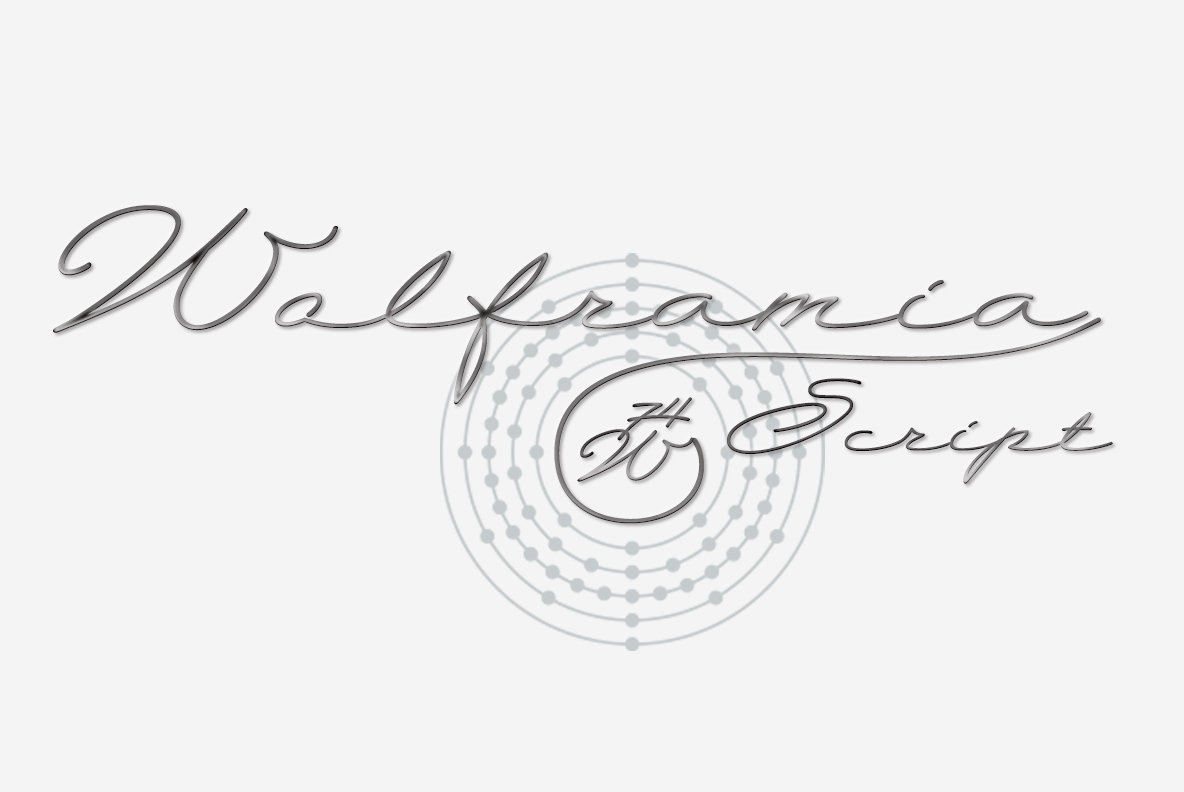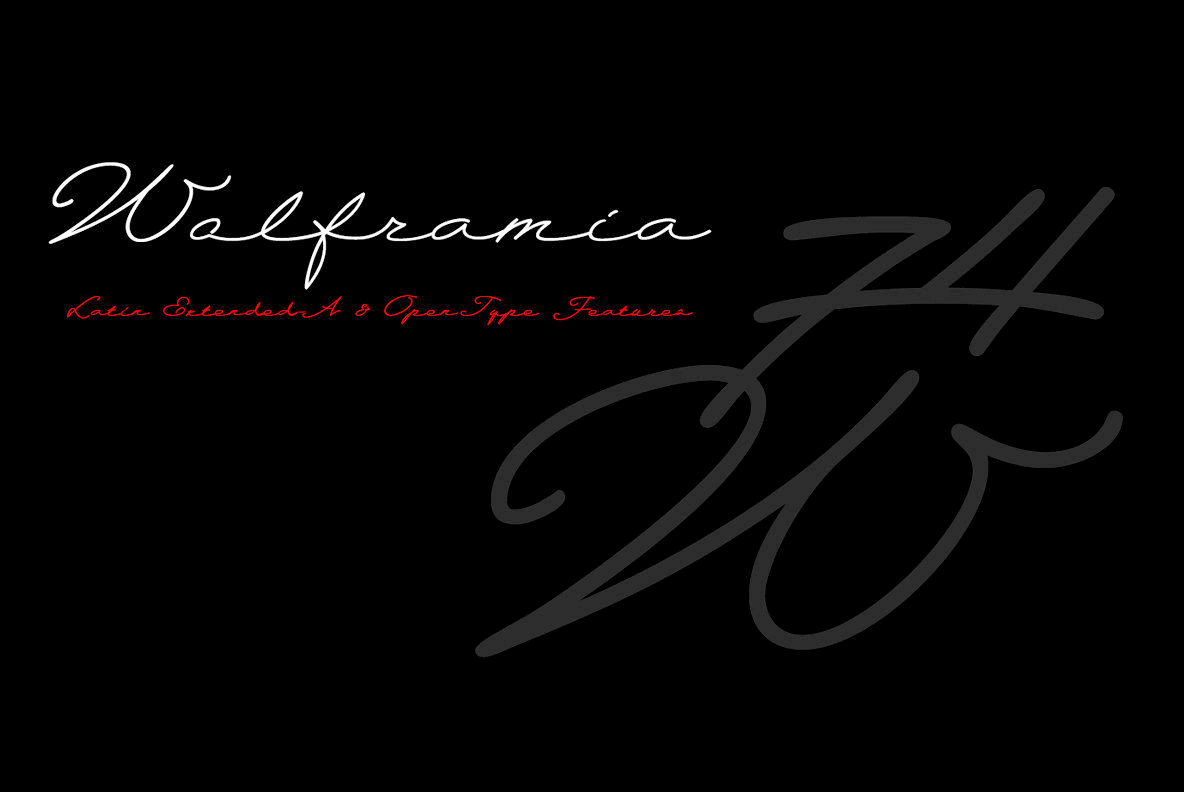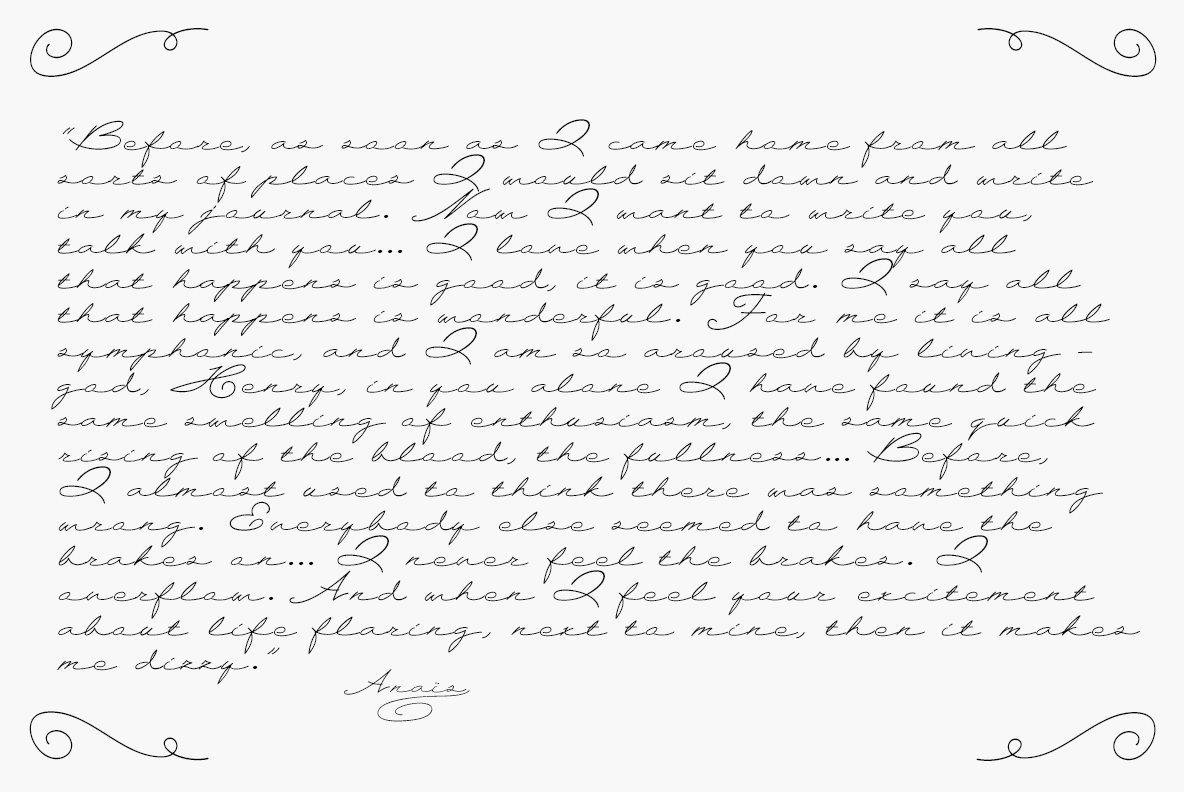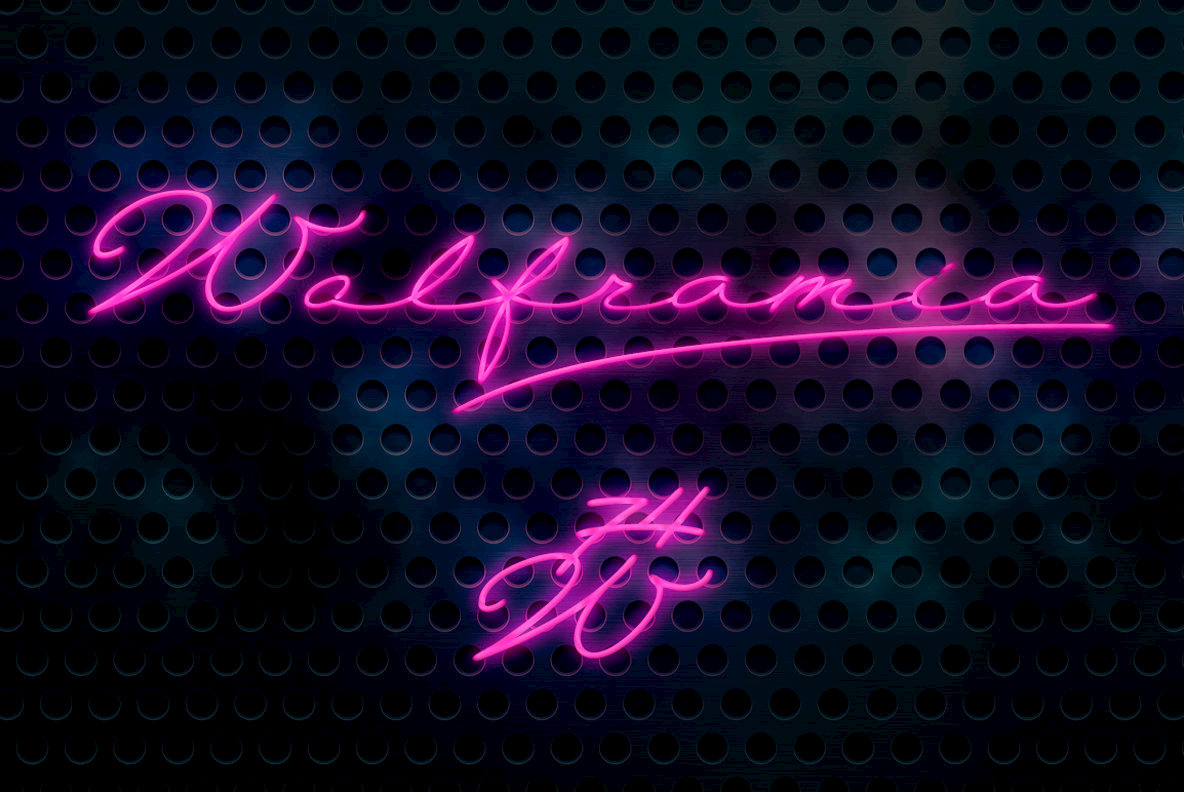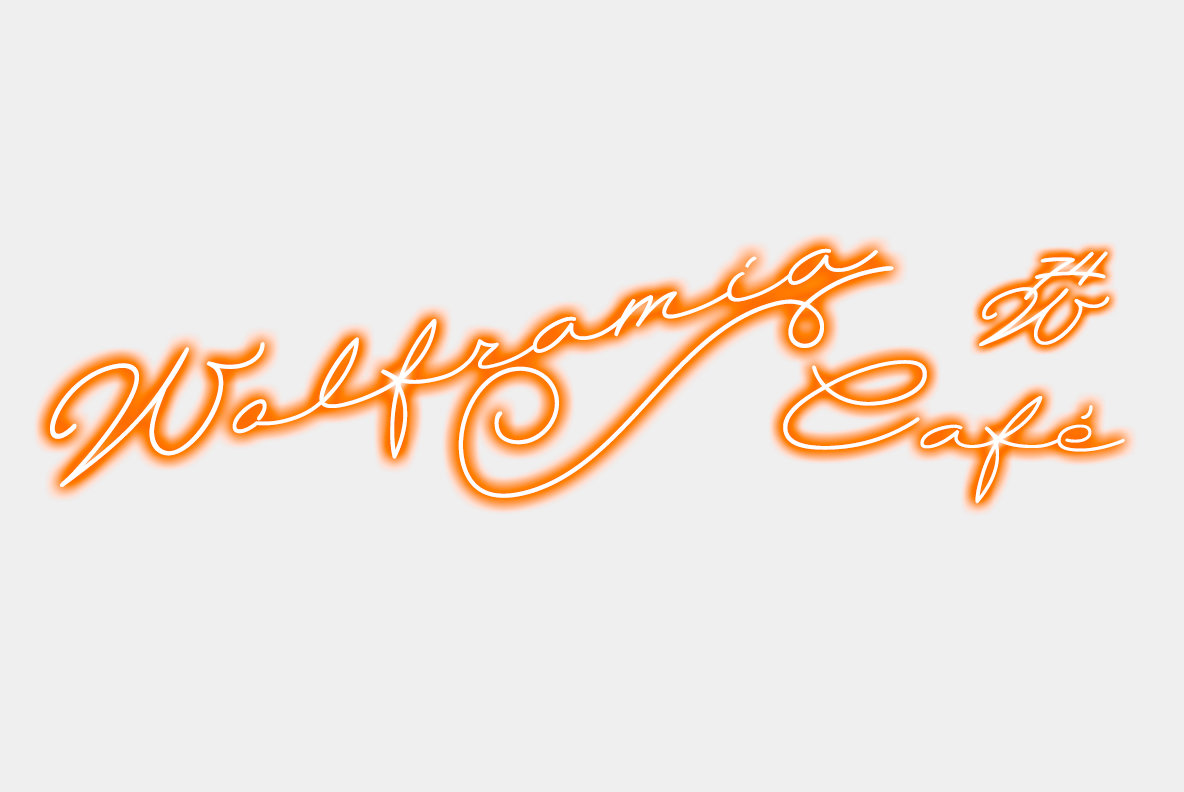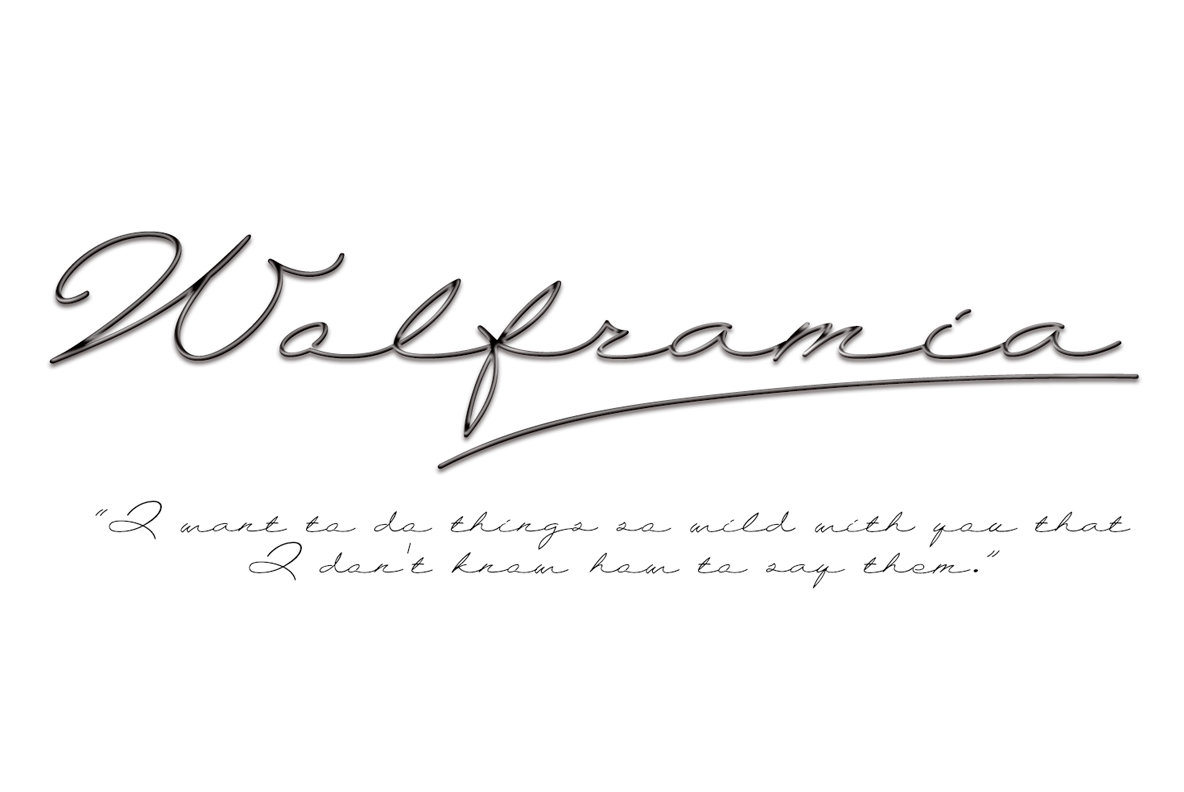
Wolframia Font
Wolframia
Wolframia presents a captivating blend of modern calligraphy and casual aesthetics, ideal for those seeking to make a statement in their design projects. With its expanded and rounded forms, this font effortlessly brings a hand-crafted touch to your headlines, invitations, and advertising materials.Wolframia: Modern Calligraphy Meets Casual Elegance
The name Wolframia honors the element Wolfram, known as Tungsten in English, famed for its robustness and versatility, reflecting the font's unique qualities.